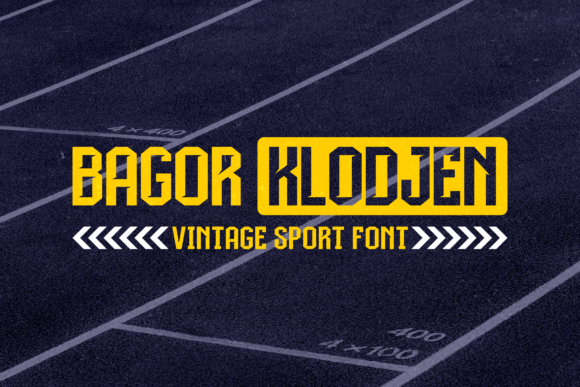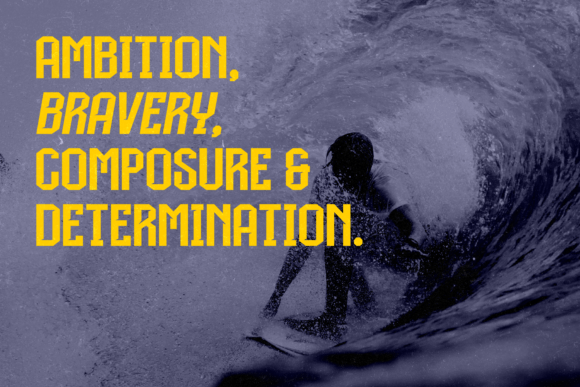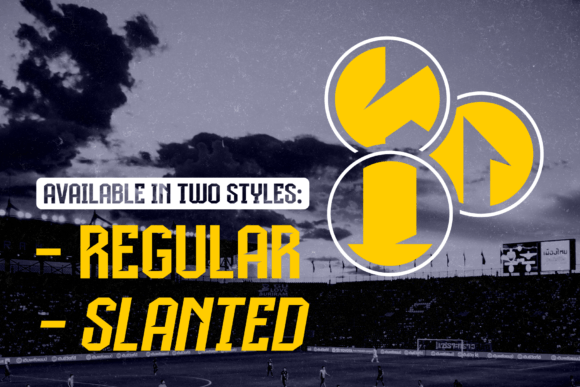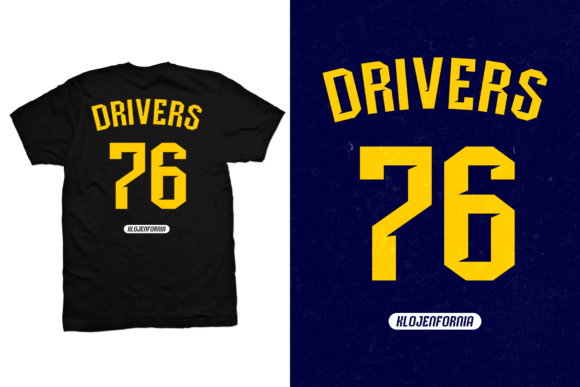
Bagor Klodjen Font: Bold Display Font for Sport Logos & Branding
About the Bagor Klodjen Font
Presenting Bagor Klodjen Font, a unique and stylish typeface that will make your work stand out. Introducing Bagor Klodjen, a blocky and stiff looking font inspired by the classic letters that are used in sport’s jersey/apparel. We made it relevant with today’s trend by adding some small details. Suits best for logo/branding, sports jersey/apparel, headline, posters, etc.
Bagor Klodjen’s bold, retro-inspired aesthetic makes it ideal for headlines, logos, and short impactful text within posters or branding materials for athletic apparel, energy drinks, or other brands projecting strength and a vintage vibe. Its blocky nature, however, makes it less suitable for body text or UI elements where readability over extended lengths is paramount.
Pairing Bagor Klodjen effectively requires considering its strong personality. A clean sans-serif like Futura or a geometric sans-serif would create a modern contrast, while a classic serif like Garamond could offer a sophisticated counterpoint, tempering the font’s boldness. Avoid pairing it with overly decorative or script fonts, which would clash with its structured form.
The font’s overall personality is assertive and confident, conveying a sense of retro-modern dynamism. This makes it a powerful choice for brands seeking to project authority and a connection to sporting heritage with a contemporary twist.
Bagor Klodjen Font Example